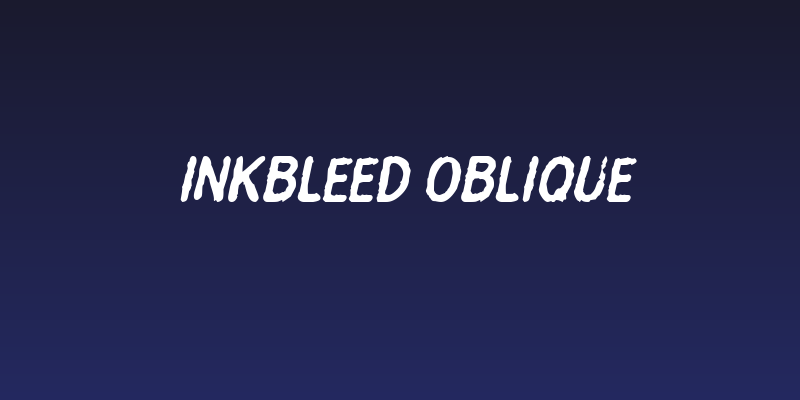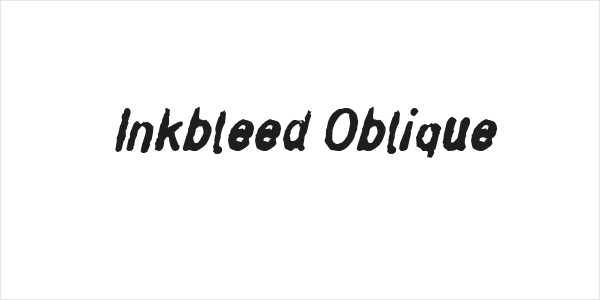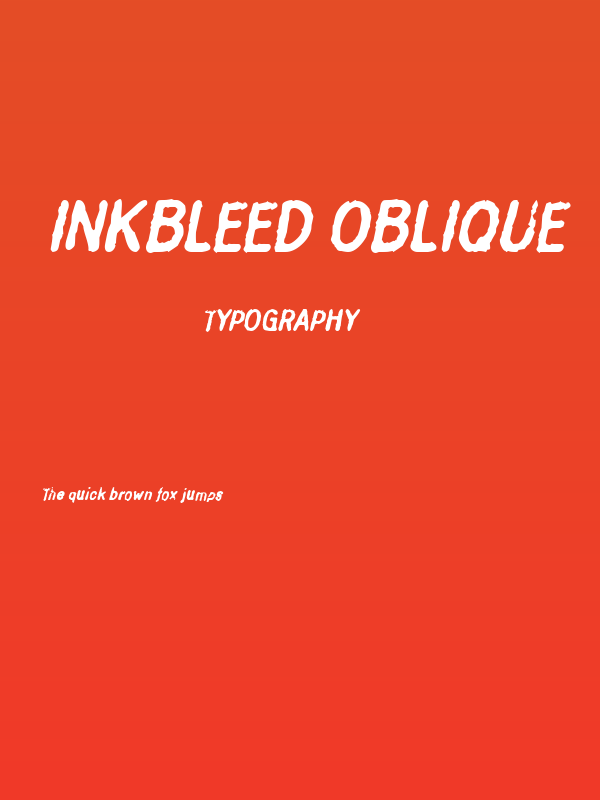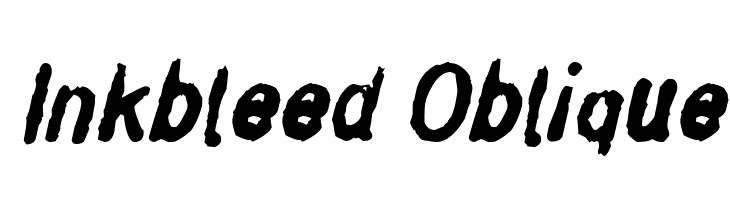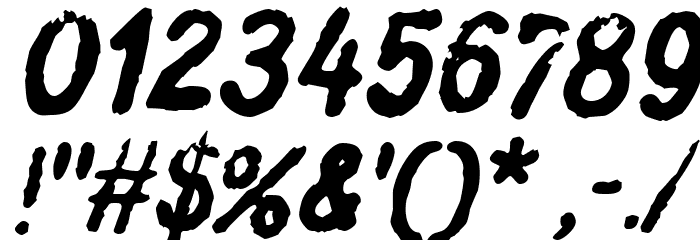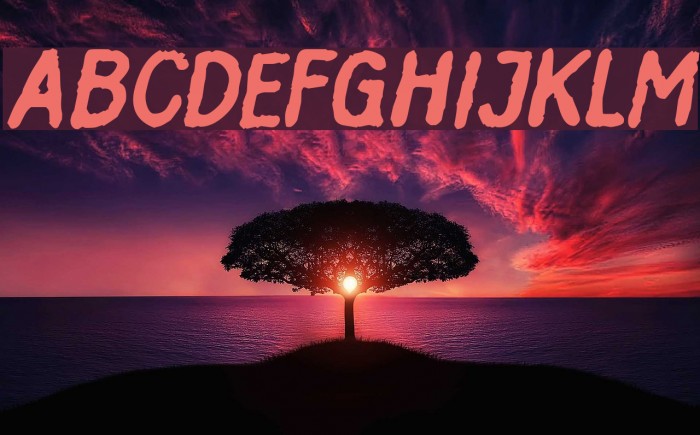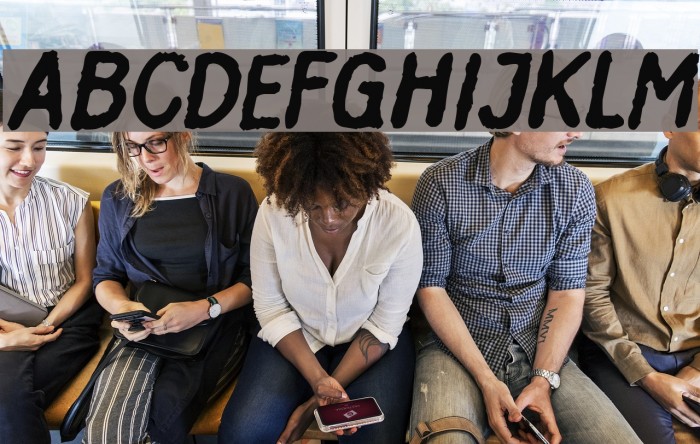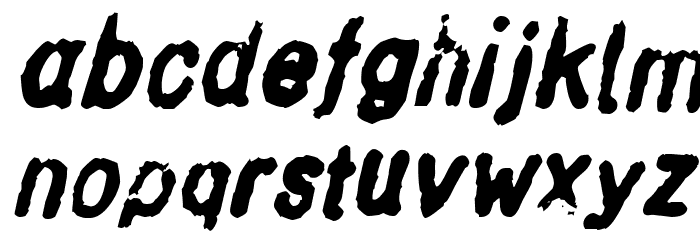
Inkbleed Oblique Font
Inkbleed Oblique Description
This font features a bold and dynamic style with a distinct ink bleed effect, giving it a raw and artistic appearance. The characters are slightly slanted, adding a sense of motion and urgency. The uppercase and lowercase letters maintain a consistent flow, with rounded edges and irregular outlines that mimic the look of ink spreading on paper. The numbers and special characters follow the same aesthetic, ensuring a cohesive look across all text. This font's unique texture and oblique angle make it stand out, ideal for creative and expressive design projects.
| Overall Style | Modern, Artistic |
| Proposed Projects | Ideal for artistic posters, album covers, graffiti-inspired designs, and creative branding. |